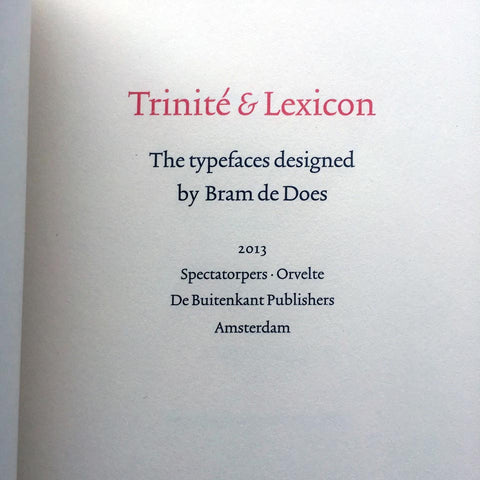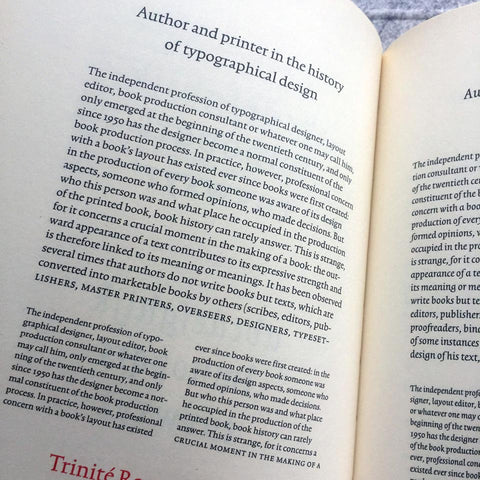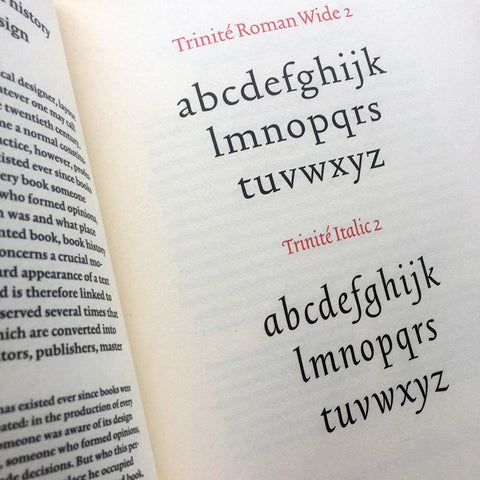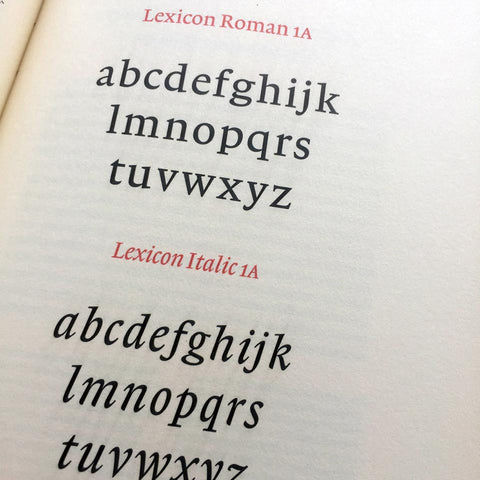
Trinité & Lexicon: The Typefaces Designed by Bram de Does
This is a serious type specimen for serious types. Designed by a master typographer (who also designed the presented faces), this is a model of bookmaking and an exceptional showing of exceptional faces. Described in detail by their designer, Trinité & Lexicon shows to good effect two faces not often seen or used outside the Netherlands.